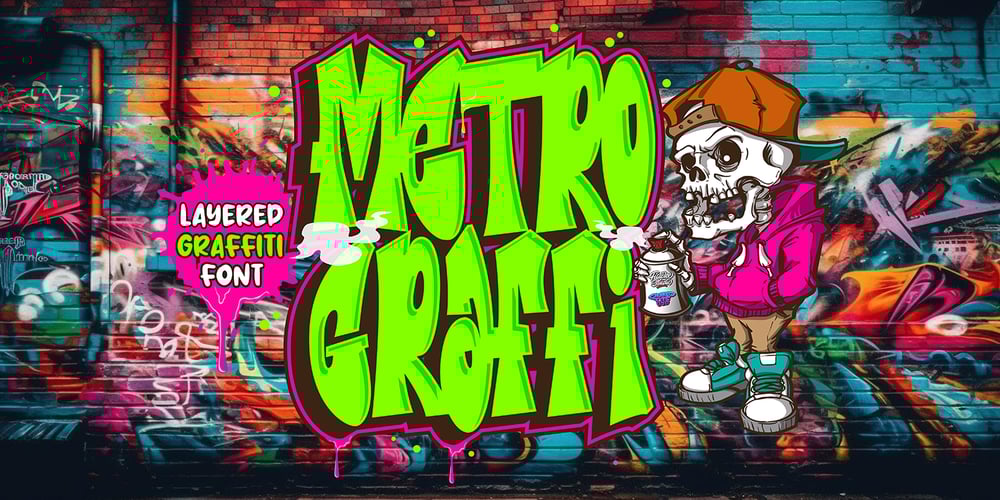
Metro Graffi 3d font
Metro Graffi 3d font Font Family was designed by Sipanji and published by Sipanji21. Metro Graffi 3d font contains 2 styles and family package options. “Metro Graffi” is a slightly bold graffiti font that comes in two styles: regular and shadow. By combining these styles, you can achieve a 3D effect that adds depth and dimension to your designs. With its urban and edgy style, “Metro Graffi” captures the essence of street art.